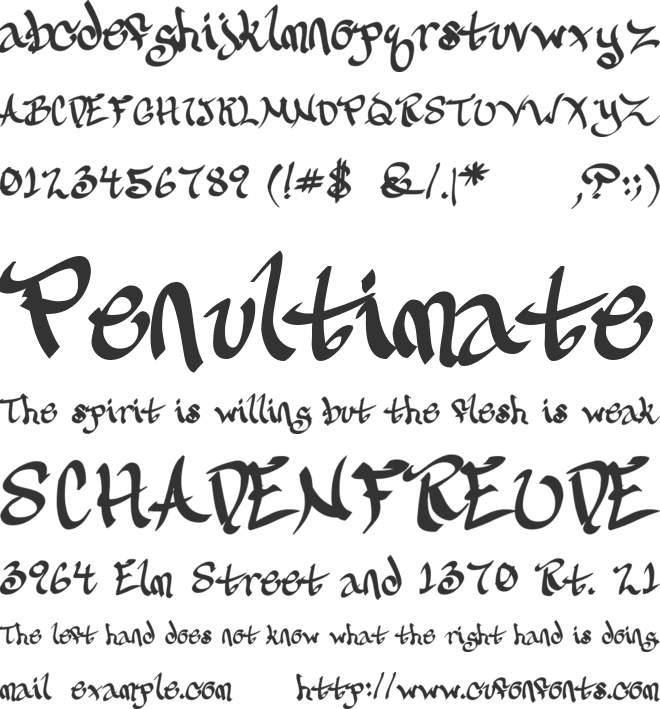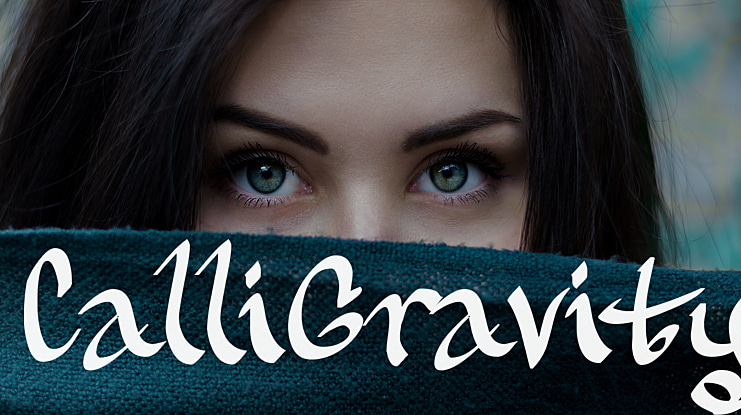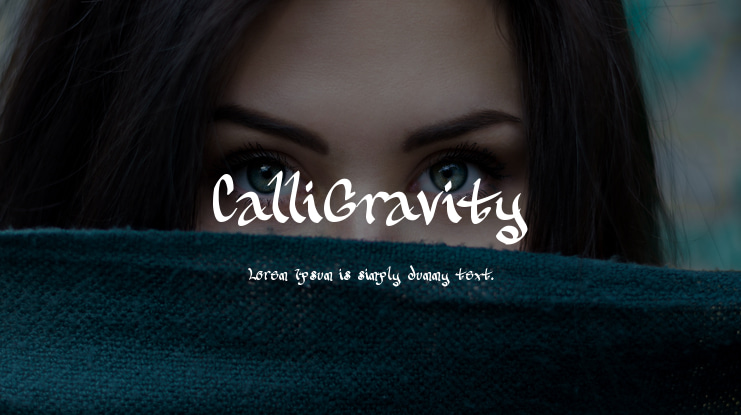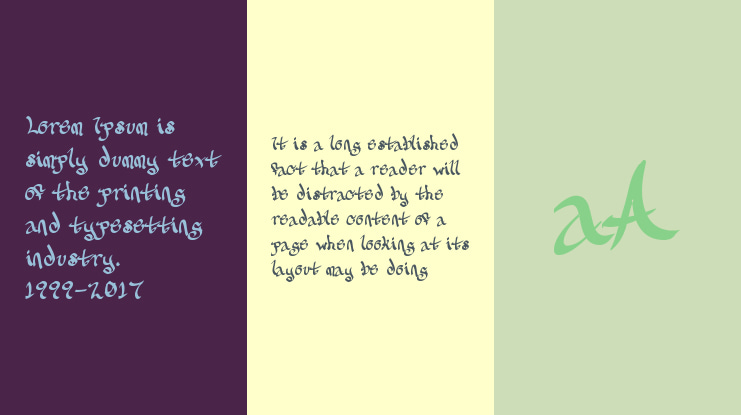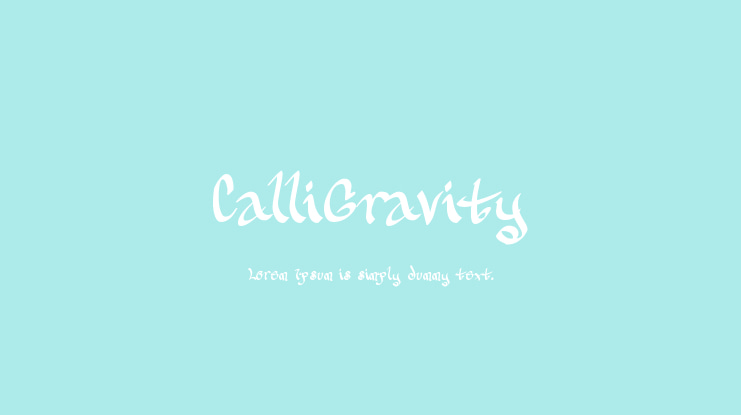
CalliGravity Font
I call this one CalliGravity, because it's somewhat calligraphic, somewhat graffiti-esque, and, er.... Several other people in the world had already used the word "calligraphitti".